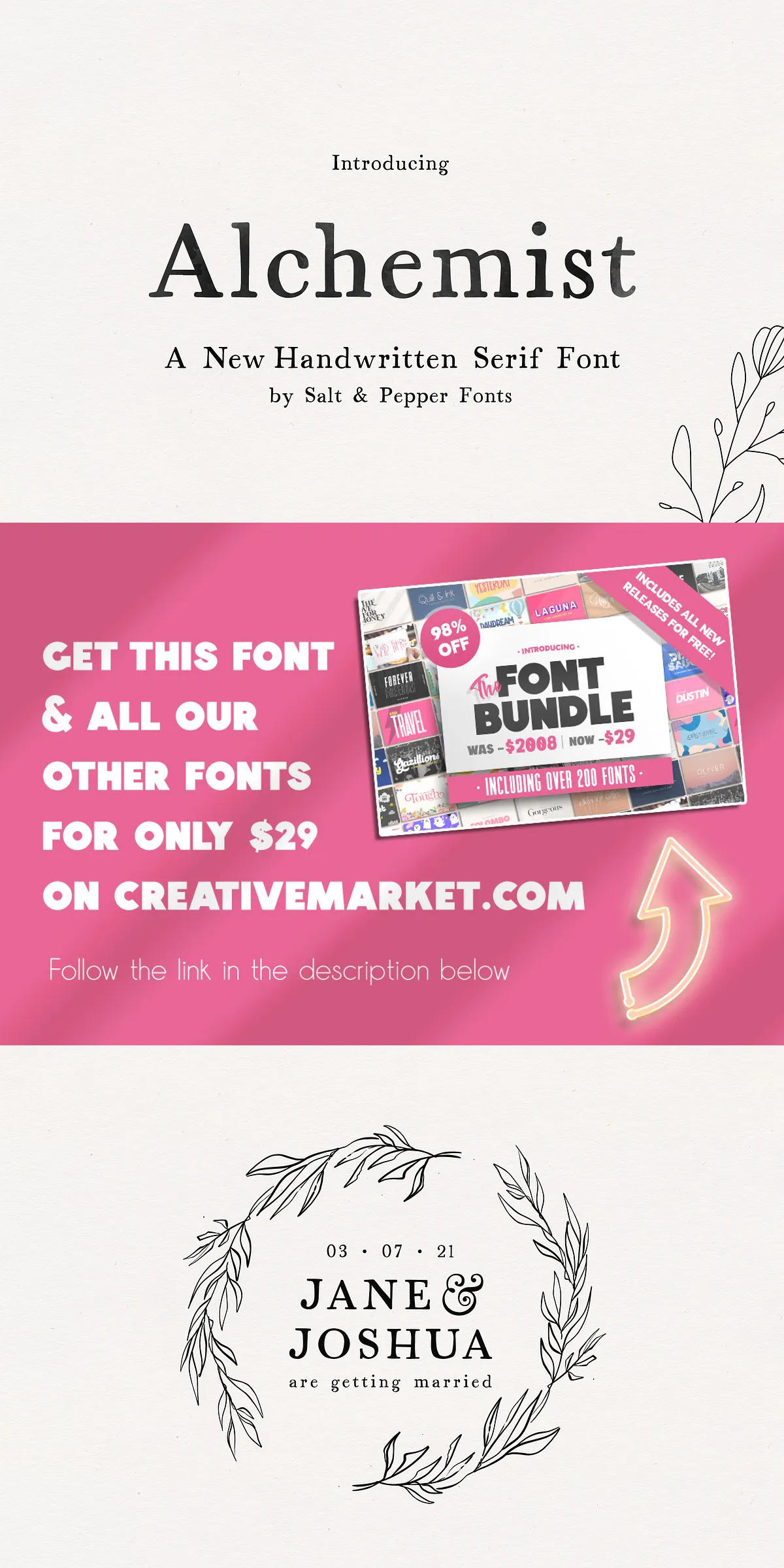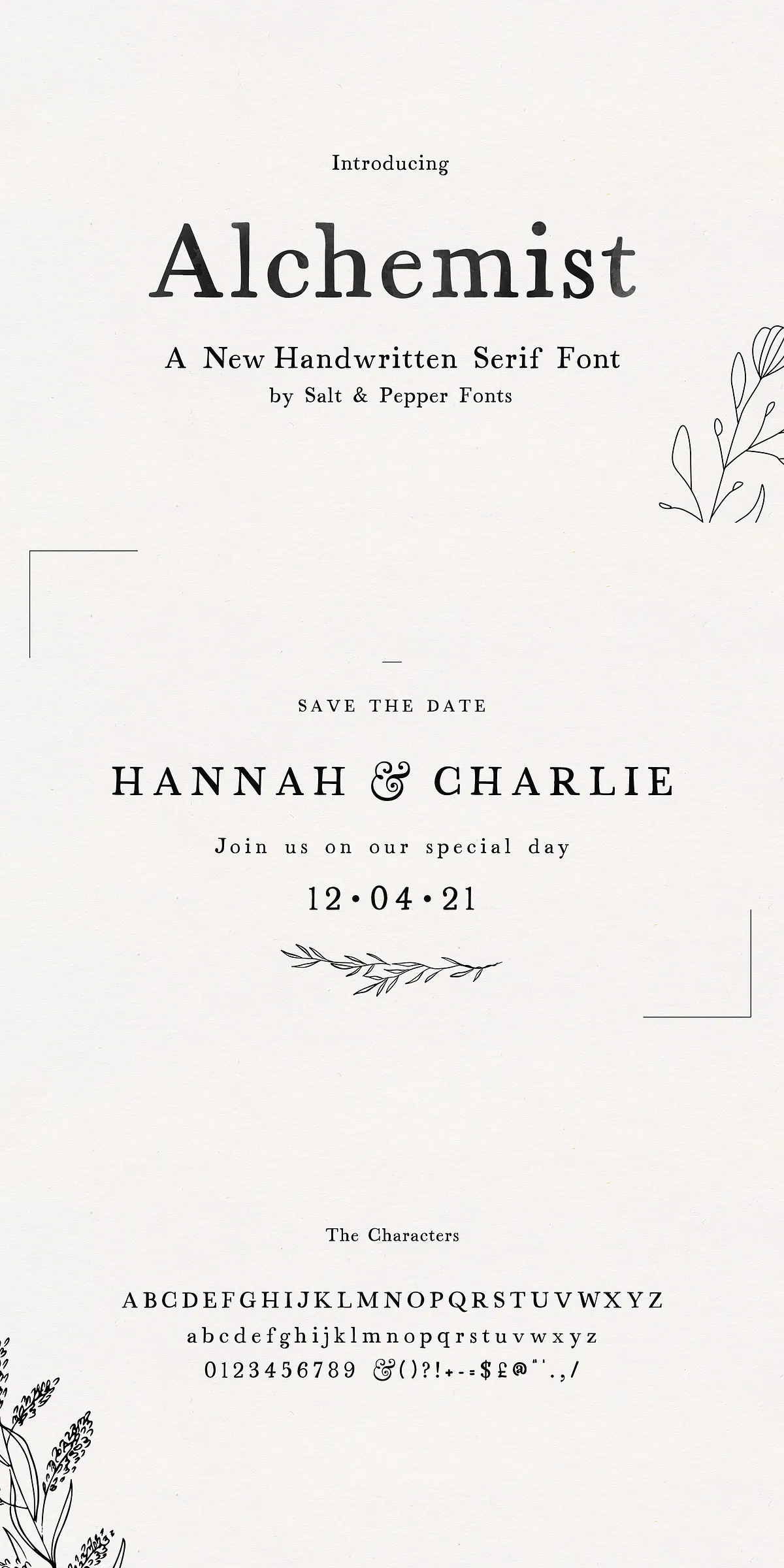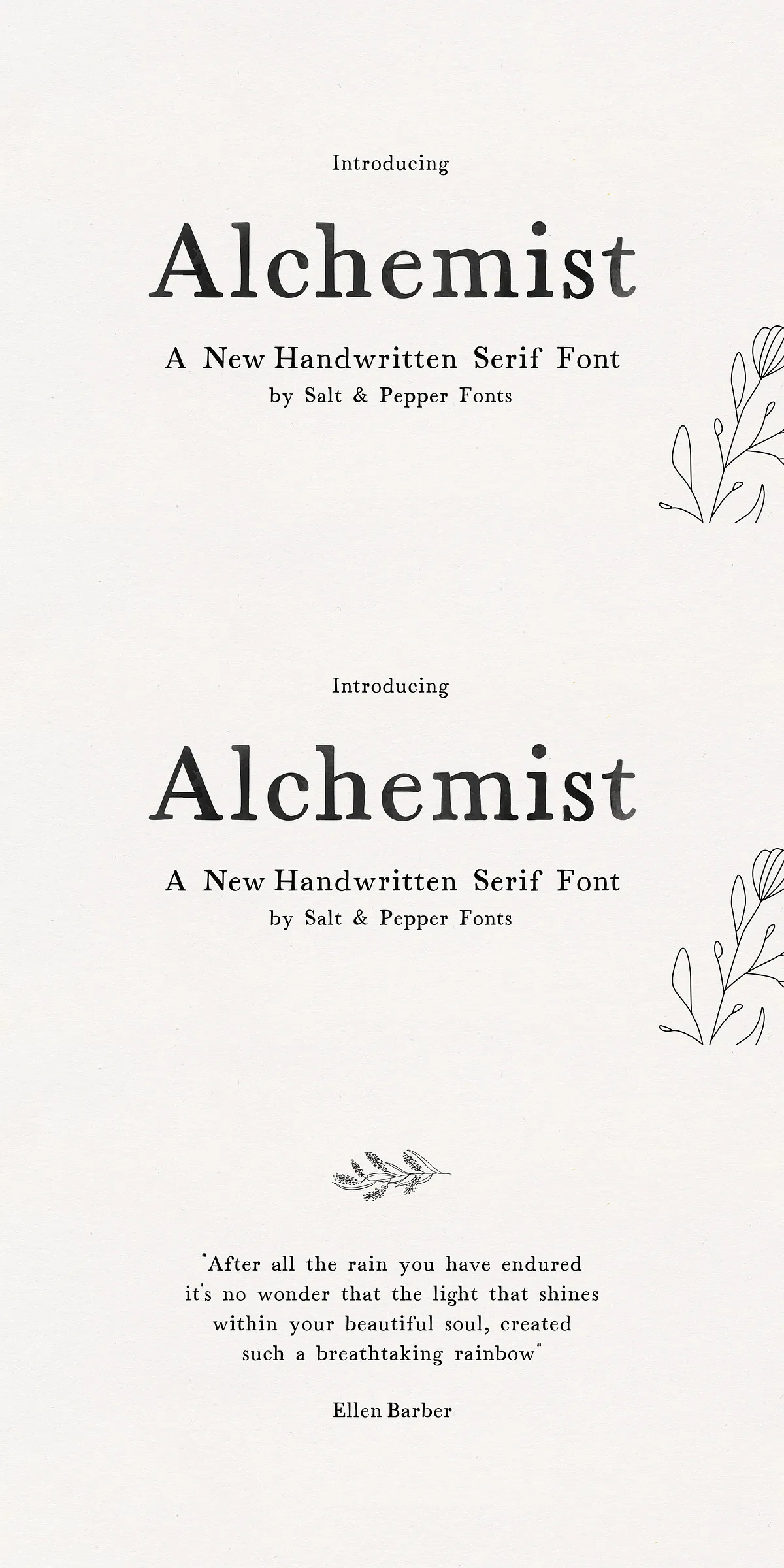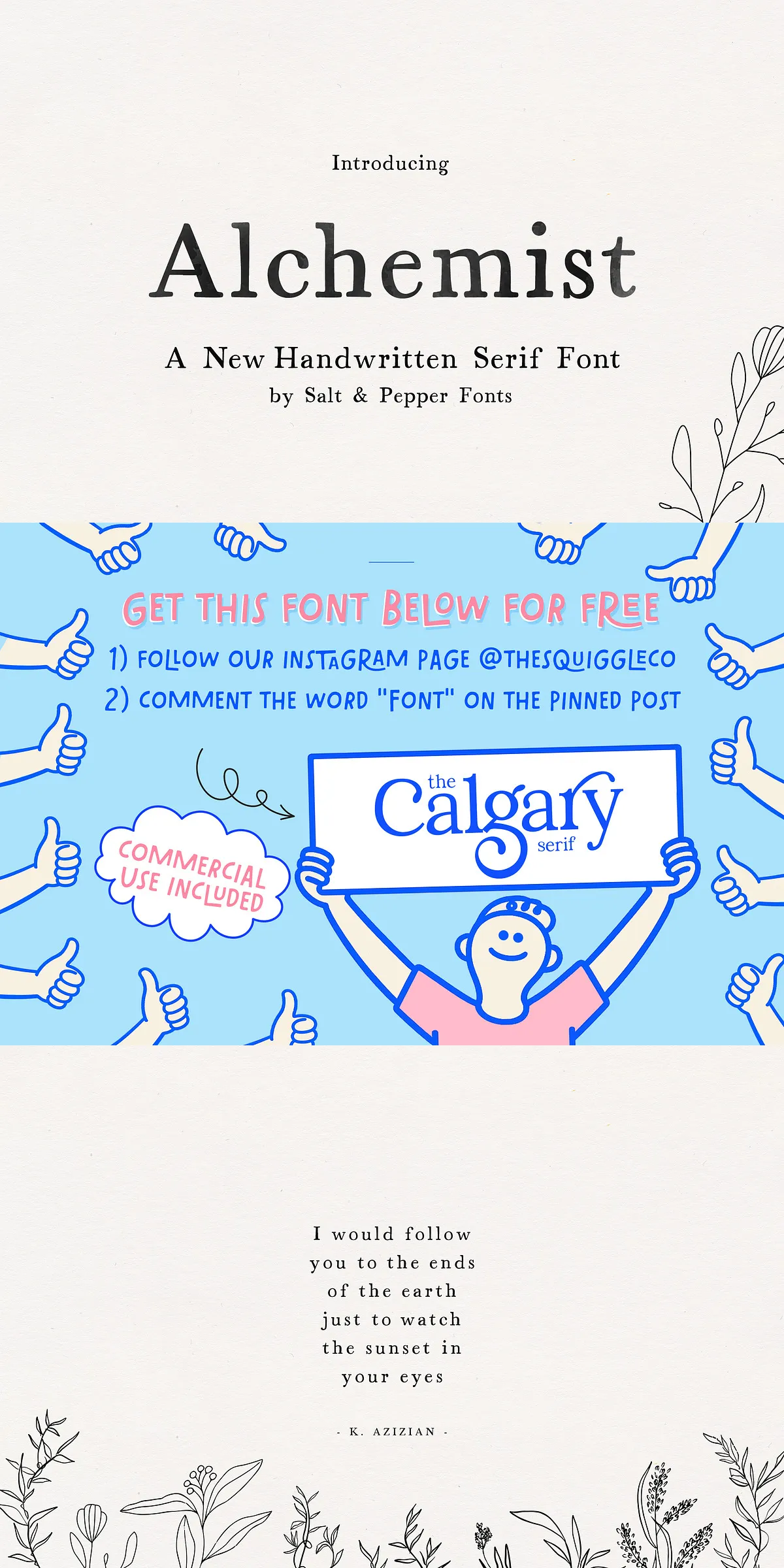
Unlock the essence of refined typography with Alchemist Serif Font — a masterfully crafted serif typeface that blends classic grace with modern precision. Designed for creatives who demand substance and style, Alchemist Serif turns every word into a statement of sophistication. Whether you’re building a brand identity, crafting a magazine layout, or designing high-end print materials, this font delivers unmatched elegance with powerful functionality.
Perfect for High-End Projects Across Industries
Alchemist Serif isn’t just another font — it’s a design tool. Its clean, balanced proportions and carefully tapered serifs create a sense of movement, hierarchy, and refinement, making it ideal for:
- Branding & Identity Systems — Build a lasting impression with logos, stationery, and brand guidelines that radiate authority and class.
- Print & Editorial Design — From luxury magazines to book covers and editorial layouts, its strong readability ensures your audience stays engaged.
- Wedding & Event Invitations — Elevate formal events with elegant, timeless typography that speaks to sophistication and romance.
- Website Headers & Hero Sections — Command attention on your digital platforms with bold yet graceful text that performs across all screen sizes.
- Product Packaging & Labeling — Add a premium feel to cosmetics, wine labels, artisan goods, and high-end retail products.
- Web-Optimized OpenType Features — Support for ligatures, small caps, and stylistic alternates ensures refined text even in digital environments.
Design with Purpose: Advanced Typography Features Built In
Every character in Alchemist Serif is designed with typographic excellence in mind. It goes beyond appearance — it empowers your creative vision with intelligent features:
- Expert Ligatures — Automatically connect letters like “fi”, “fl”, and “ff” for smoother, more professional-looking text.
- Stylistic Alternates — Access different form variations for key letters (like ‘a’, ‘f’, ‘s’) to add subtle uniqueness to your design.
- Small Caps & Caps-Lining — Create elegant hierarchies in headings, captions, and quotations with consistent sizing and proportions.
- Extended Language Support — Fully supports Western, Central, and Eastern European languages, making it ideal for international projects.